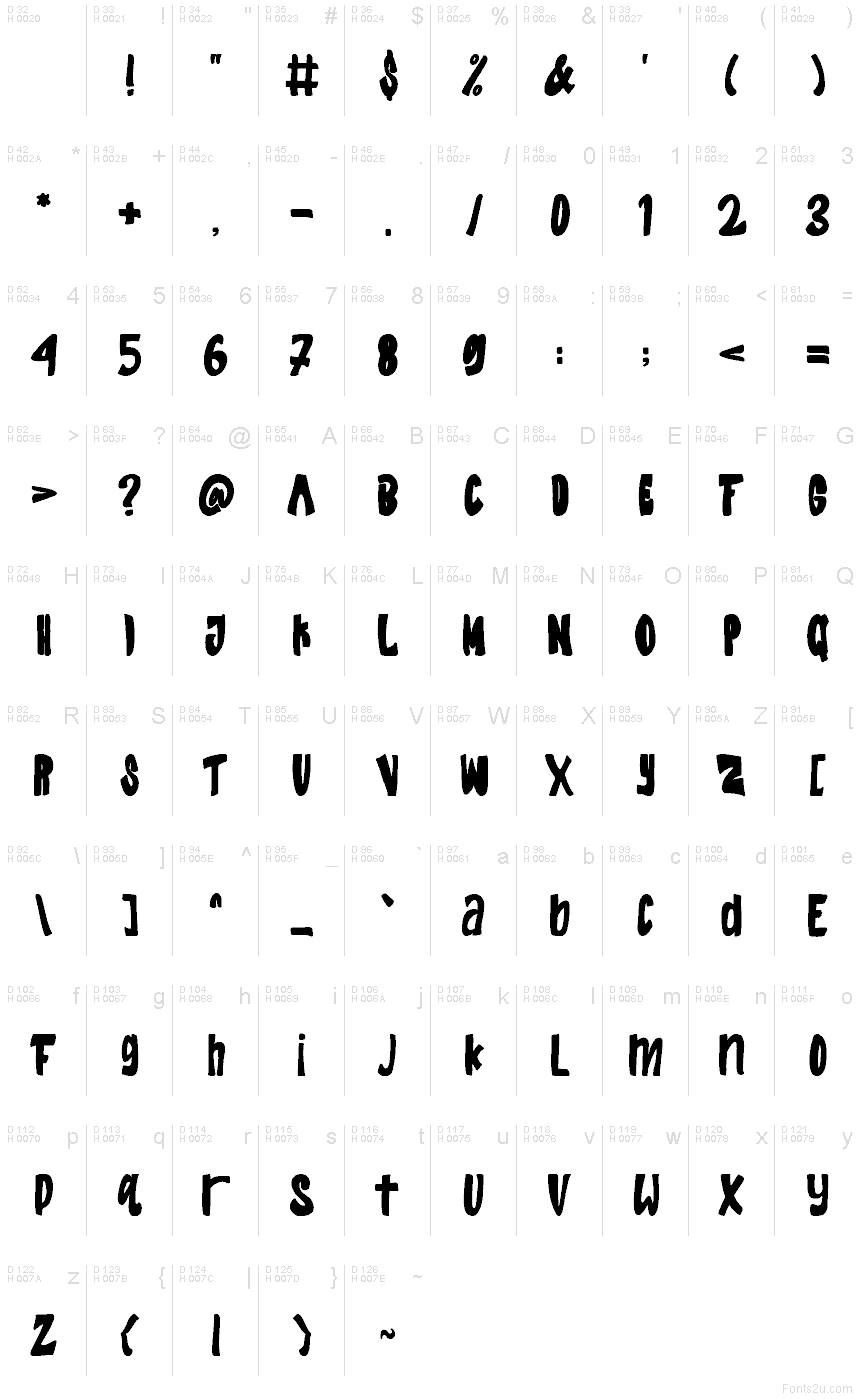
Marx Hilton
Marx Hilton font with its organic forms and cartoon style offers a warm, casual vibe in every word. Designed by Wildan Type, the display typeface is not only bold but also condensed in appearance. With uneven textures and quirky letters, it’s the sort of font that easily appeals to children with its distorted design.
The free cartoon display font can work well on stationery printed materials just as much as it does digitally on websites and social media posts. Use it on playful invitations, posters for events, advertisements targeting kids segment along with book covers or packaging designs for toys and confectionery. It fits titles for games too!